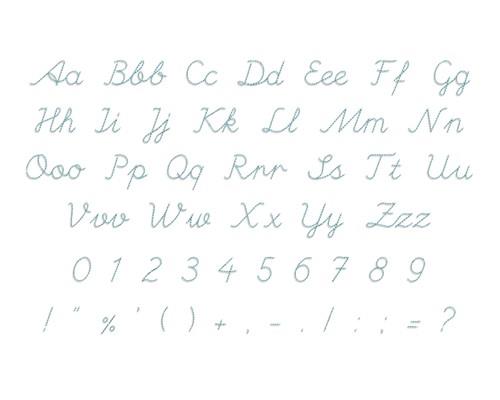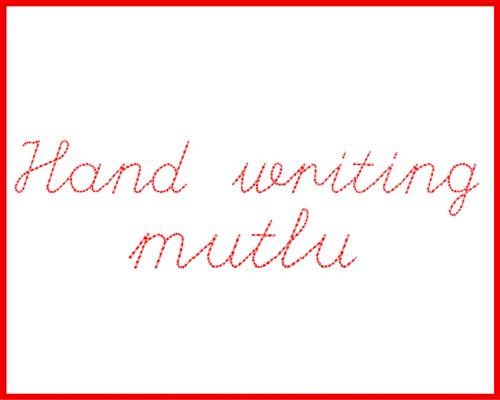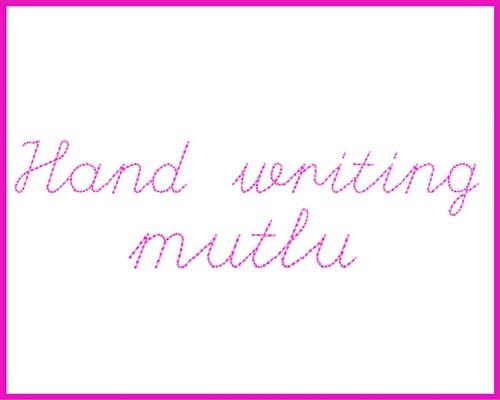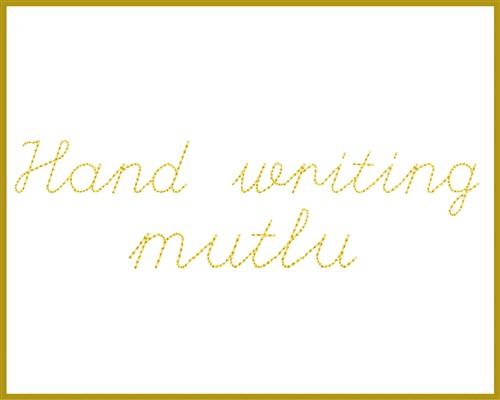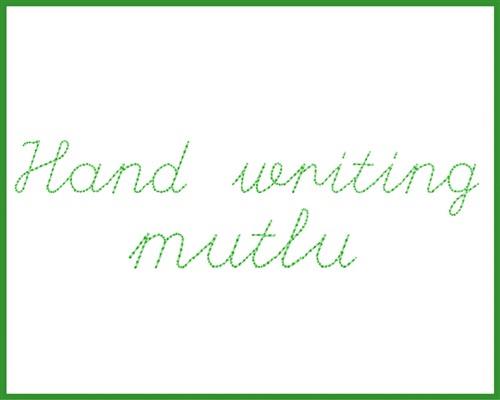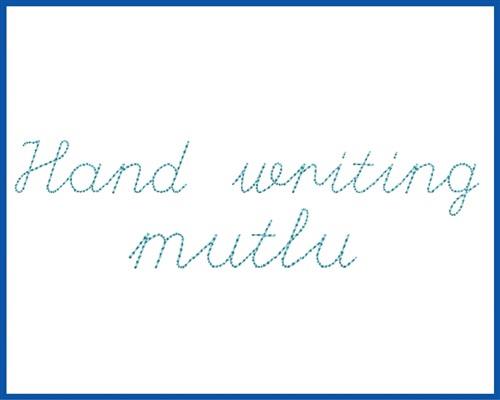
Maya Kreations is happy to present Hand Writing Font machine embroidery font which has Cursive, handwritten machine embroidery font with a delicate outline effect, perfect for personalizing table linens and gifts. Ideal for users seeking a unique touch. Available in PES, DST, and eight other formats. included. If you would like to view more embroidery fonts and alphabets please search our embroidery fonts page.